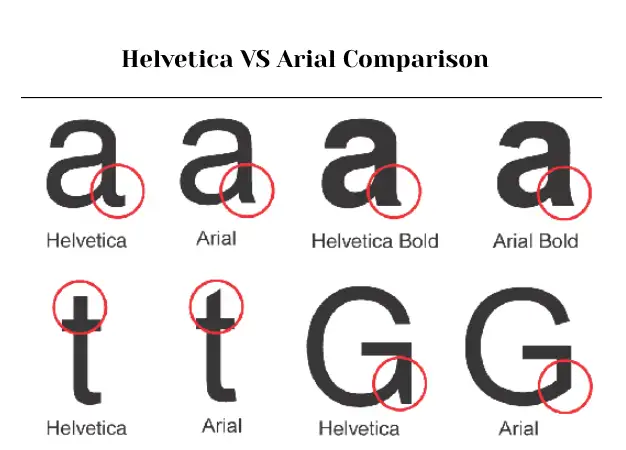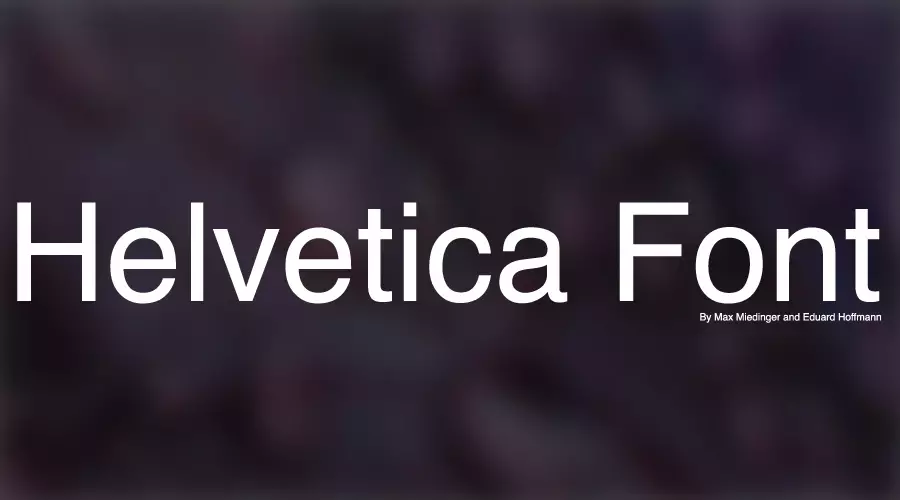
Helvetica is a commercial sans-serif typeface. Max Miedinger designed it in 1957 for the Haas Type Foundry in Switzerland. Because it is commercial, check the license before you use it in a logo, a product or any paid work.
About the Helvetica font
Helvetica has clean, even letters. Its characters have no small decorative strokes at the ends, which is what makes it a sans-serif. The spacing is balanced, so text stays easy to read in small sizes and on screens.
The typeface has appeared on signs, documents, packaging and corporate logos for decades. Many designers still choose it when they want a neutral, professional look.
History of Helvetica
Helvetica began as a project for the Haas Type Foundry. The goal was a modern, legible sans-serif that could be an alternative to the older Akzidenz-Grotesk.
The first release came in 1957 under the name Neue Haas Grotesk. The name changed to Helvetica in the early 1960s, when the typeface was released more widely. The name comes from Helvetia, the Latin name for Switzerland.
Use of Helvetica
Helvetica shows up in many places. These are common uses:
- Body text in a business report or academic paper
- Headings and subheadings in a document or presentation
- Logos and branding materials
- Advertisements and promotional materials
- Signs and labels
- Menus and food packaging
- Website and app interfaces
- Transportation signage
- Film and television graphics
- Print and digital media products, such as magazines, newspapers, and books.
Its neutral look is the main reason it fits so many projects. Whether the job is a poster or a manual, it does not get in the way of the message.
| Designer | Max Miedinger |
Helvetica font family
The Helvetica family has many styles, from Light to Black, plus condensed and rounded versions. The list below shows the names in this family.
Helvetica vs Arial
Arial is often compared with Helvetica. It was designed to match Helvetica’s widths, so the two look alike at a glance. They are still different fonts.
The differences show up in small details. Helvetica’s R has a curved leg, and its G has a spur. Arial’s R has a straight diagonal leg, and its G has no spur. Arial comes with Windows, so many people use it without thinking about the choice.
Who designed Helvetica?
Swiss type designer Max Miedinger designed it in 1957 for the Haas Type Foundry. It began as Neue Haas Grotesk.
Is Arial the same as Helvetica?
No. Arial was designed to match Helvetica’s widths, but the letters differ in small details, such as the R and the G.
Is Helvetica Now the same as Helvetica?